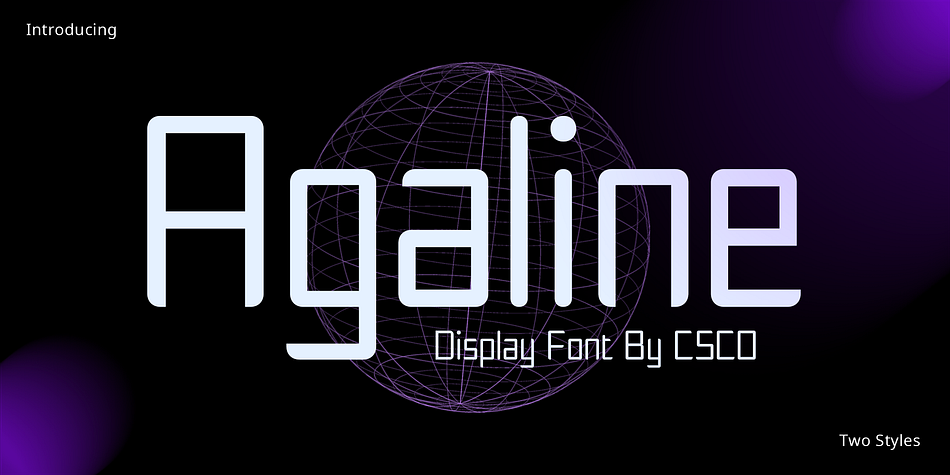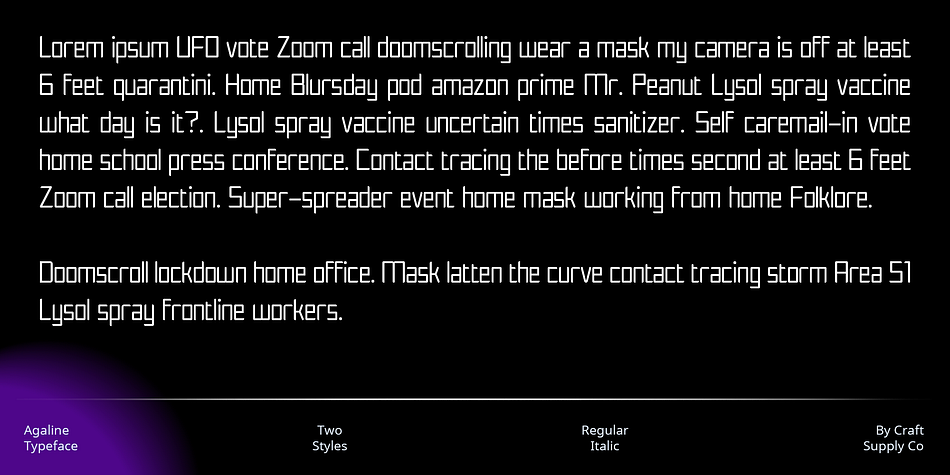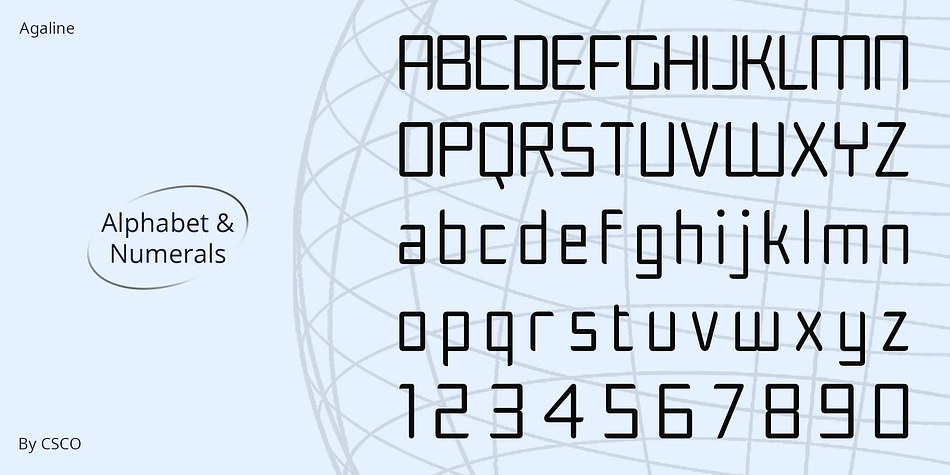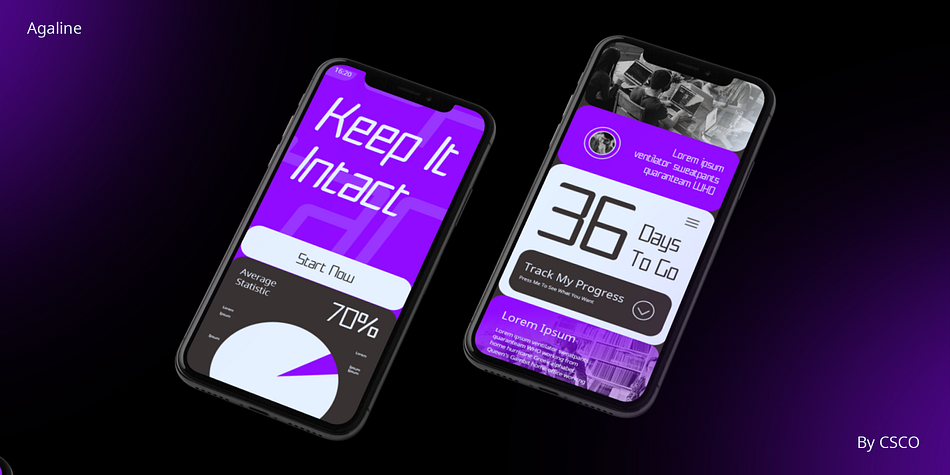
Agaline
Agaline is a display sans font family. This typeface has two styles and was published by Craft Supply Co.
Agaline Font – Futuristic Typography
Sleek Futurism
Agaline, a typeface that transcends time, emanates a science fiction aura with its sleek and futuristic design. The font epitomizes modern efficiency and effectiveness for extended displays.
Minimalist Marvel
In the realm of minimalist fonts, Agaline stands out. Its characters, adorned with futuristic nuances, deliver a modern and efficient aesthetic ideal for extended displays.
Efficiency in Design
Agaline doesn’t just look futuristic; it embodies it. The font’s design is a testament to efficiency, ensuring that each character contributes to a sleek and contemporary visual experience.
Perfect for Lengthy Displays
Whether it’s a long read or an extensive presentation, Agaline’s minimalist and futuristic charm keeps the audience engaged, making it perfect for a variety of display purposes.